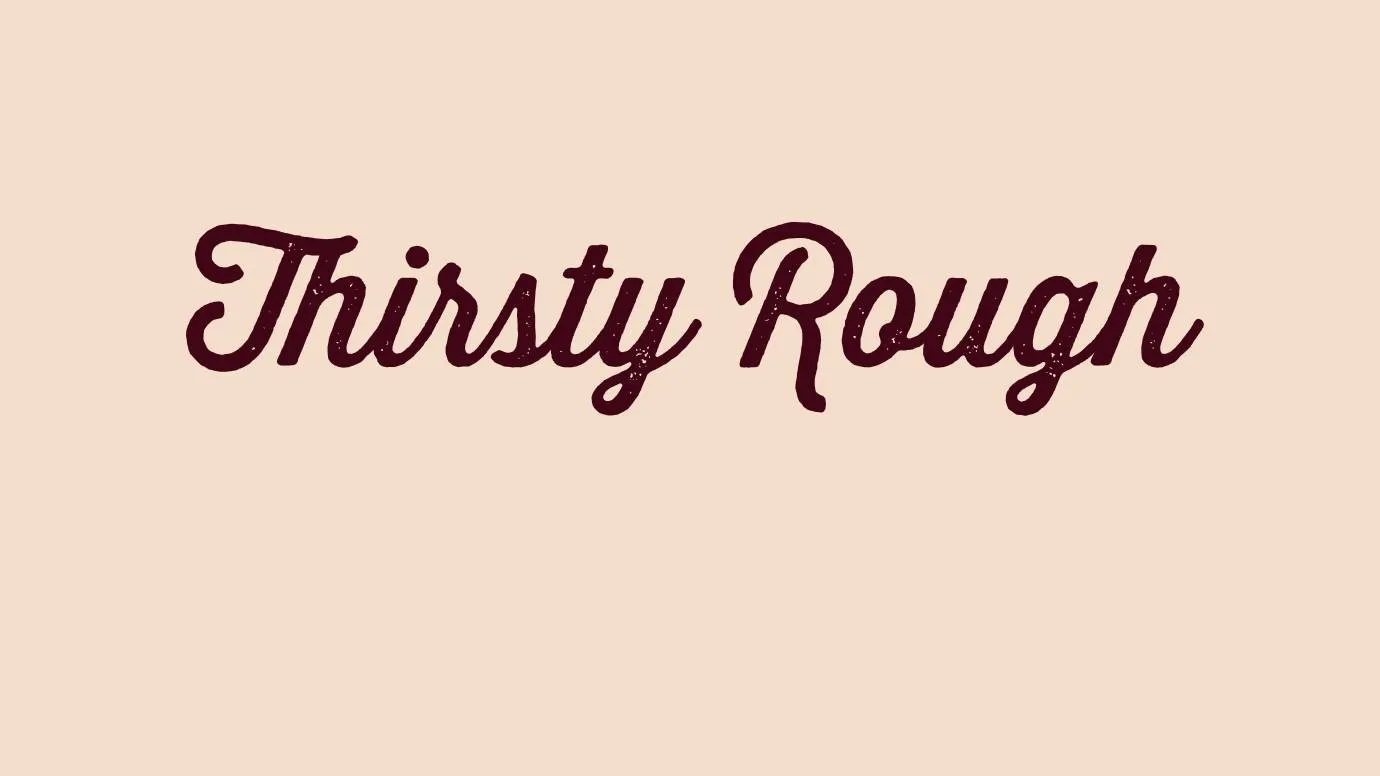
Thirsty Rough Font Family is a member of the script typeface family that was designed by a well-known typeface designer Ryan Martinson and it was released in 2012 by the Yellow Design Studio.
A very large X-height and the letters are more closings to each other and provided the character set in this font with a clear appearance. Wisdom Script Font, Black Panther Font, Haptic Script Font, and Viktor Script are the most similar fonts to the Thirsty Rough Font.
NameThirsty Rough Font
DesignerRyan Martinson
StyleScript